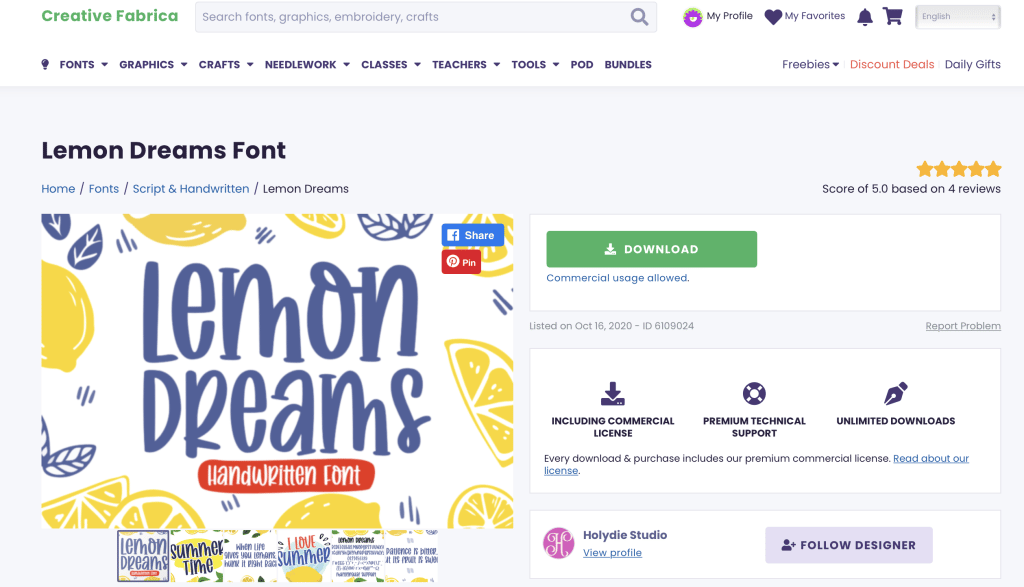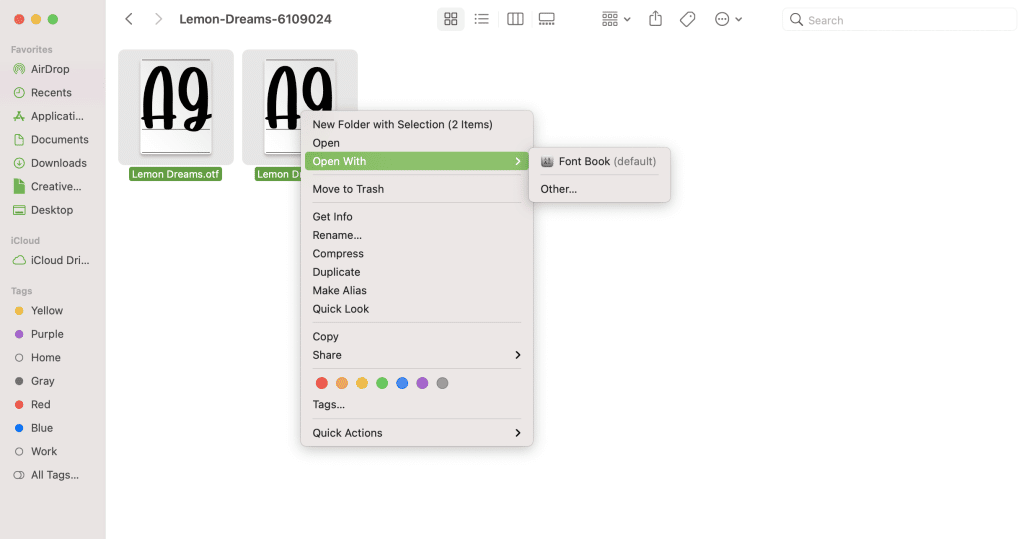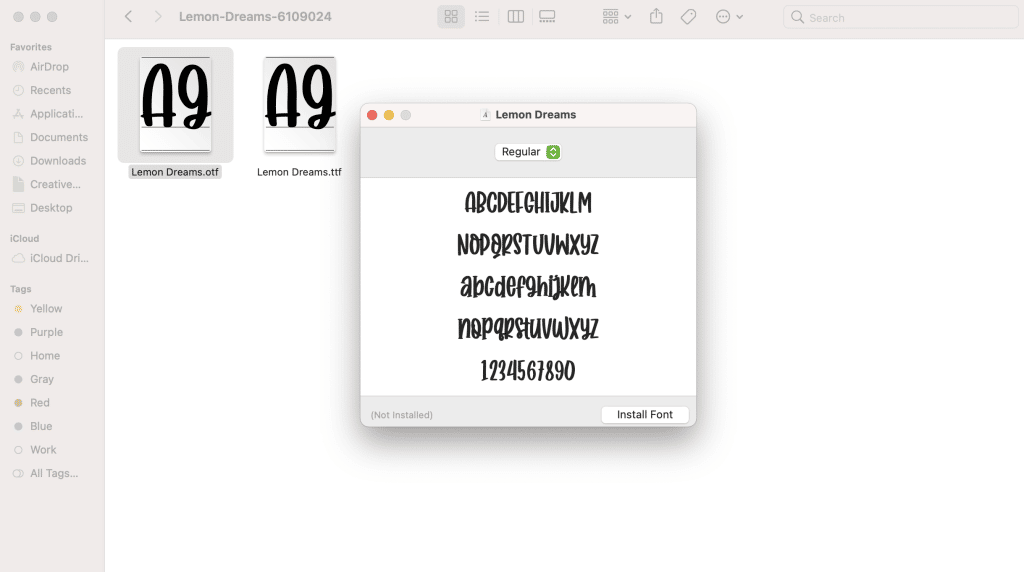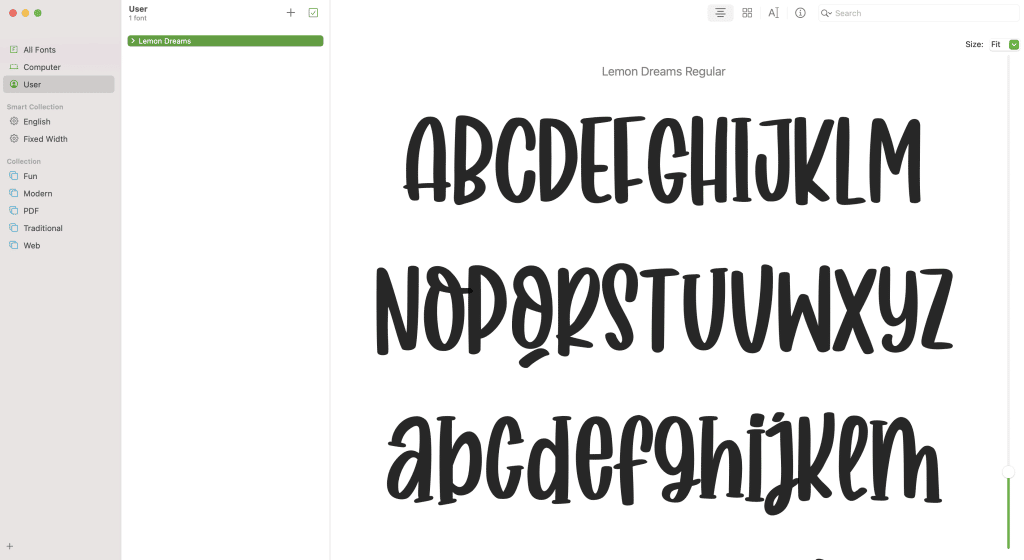
How to Upload Fonts to Cricut Design Space
If you want to take your Cricut projects to the next level, you should consider using your own fonts in Cricut Design Space. Don’t worry, it’s really easy! I’ll show you How to Upload Fonts to Cricut Design Space on Mac, Windows, and Mobile Devices. Plus I will share some of my favorite places to download fonts for personal and commercial use.
Can I Upload My Own Fonts to Cricut?
Yes! The most popular question I get about font is “can you import fonts into Cricut?” You can use fonts already on your computer in the Cricut Design Space app. Known as “system fonts,” you can use them in all of your projects for FREE. That means that any font you have downloaded to your computer, you can upload it to Cricut Design Space!
There is a large selection of fonts that are included in Cricut Design Space for free (“Cricut fonts”), and you can use them in any of your projects. In addition, there are even more Cricut fonts available with a Cricut Access subscription. But what if none of the Cricut fonts work with your design? If you’re like me, you like to use ALL the fonts!
This is where all of the downloaded fonts on your computer will give you the creative freedom to create any design you want! You can use a particular font to create brand projects, holiday projects, and more! Don’t limit yourself or pay for the available fonts in Design Space when there are high quality fonts you can download for free or cheap!
What are Good Fonts for Cricut Design Space?
As much as I love a free font, they are not all created to be compatible with electronic cutting machines. Fonts that are rough, sketched, or look watercolor will not cut cleanly with a Cricut. A lot of hand lettered cursive fonts fall into these categories, so definitely watch for those. When you choose to download fonts for Cricut designs, you want to look for fonts that have clean edges.
Cricut Design Space uses mathematical equations to read the font and turn it into a cut file. You may have heard the term “vector” or SVG file – those are file types that use this mathematical formula.
Fonts that are simple and clean lined have more straightforward equations and will therefore be simpler for the Cricut to cut.
If you look closely at this font in Cricut Design Space, you will see the rough edges and tiny little points that will have to cut.
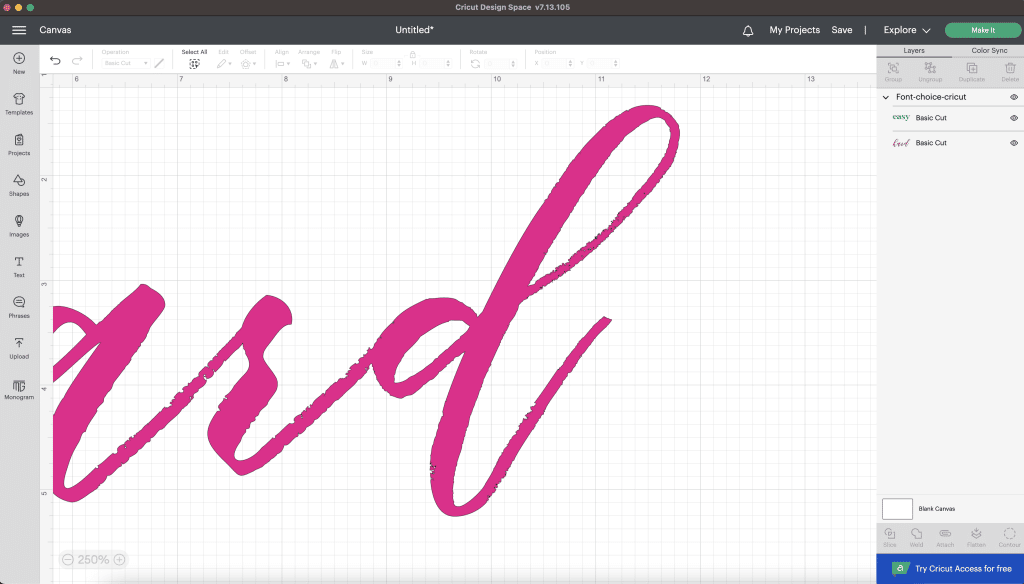
This font is a serif font that has minimal points and will cut nicely.
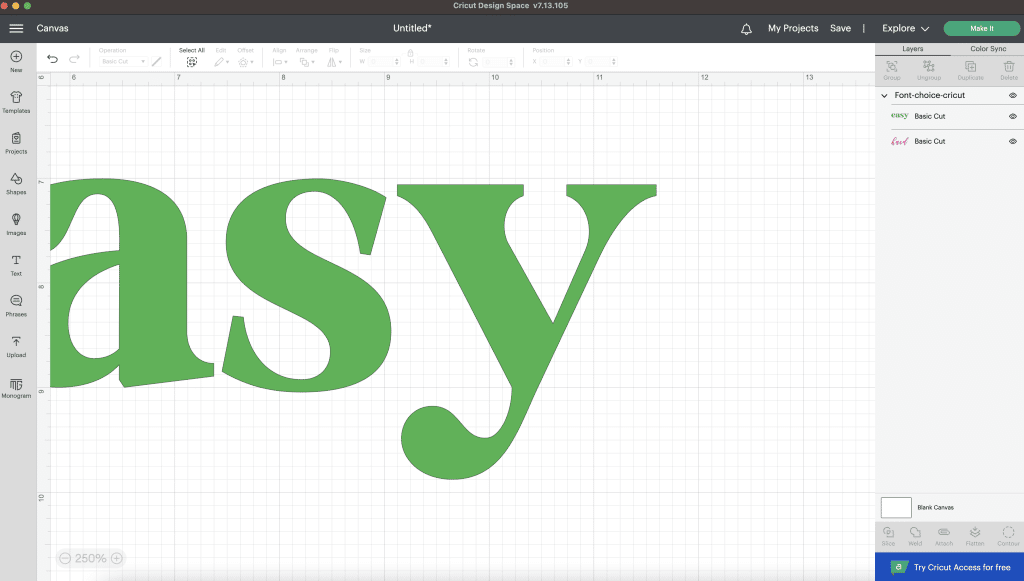
Of course there are cursive fonts that will cut very well, but how a font is designed is extremely important when you choose a font to download to Cricut Design Space.
If you want to read more about fonts and vectors (and how you can design craft files with fonts outside of Cricut Design Space), make sure you read my post on How to Vectorize Fonts. If you’re a more advanced Cricut user, you’ll love the freedom you get outside of Design Space!
When choosing fonts to download, you also need to consider the end use for your project. If it is for personal use, generally any font is fine to use. But if it is a project that you will sell (commercial use), you will need to choose fonts that include a commercial license. Most fonts will explicitly state what the terms are.
That is one of the reasons that I love to choose fonts from FontBundles or Creative Fabrica. All purchased fonts or fonts downloaded within their subscriptions automatically include a commercial license.